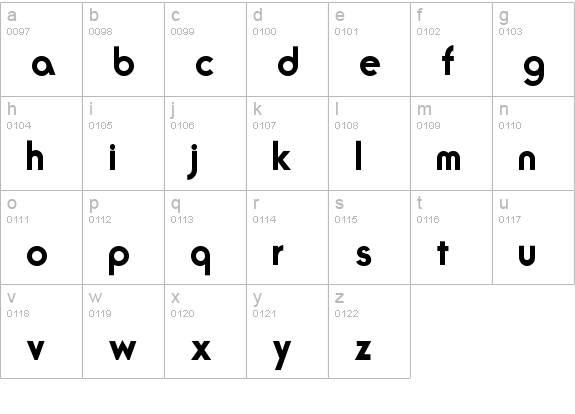
RondaBold Font Details
RondaBold is a sleek and modern font that exudes confidence and sophistication. Its bold and distinctive letterforms make it perfect for making a statement in any design project. The strong, clean lines of RondaBold give it a timeless quality that ensures it will never go out of style. The best part? RondaBold is completely free to download at FontsMarket.com. This means you can elevate your designs with this elegant font without having to spend a dime. Whether you're creating a logo, designing a website, or working on a print project, RondaBold is sure to make a lasting impression. Download RondaBold today and add a touch of class to your designs!